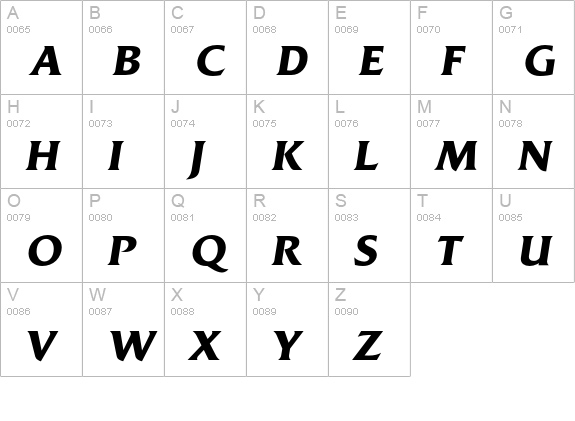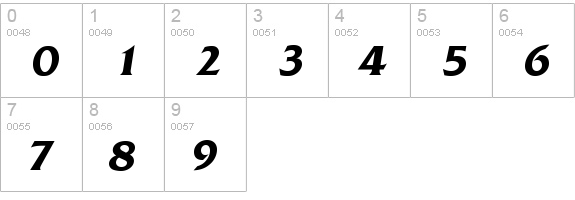
Quadrat-DemiBoldIta Font Details
Quadrat-DemiBoldIta font is a perfect blend of elegance and modernity. With its bold and italicized characters, this font exudes a sense of confidence and sophistication. The unique design of Quadrat-DemiBoldIta makes it stand out from the crowd, making it an ideal choice for logos, headlines, and branding materials. The versatility of this font allows it to be used across a wide range of design projects, from print to digital. Its clean lines and distinctive letterforms ensure readability, even at smaller sizes. Whether you are creating a poster, a website, or a magazine layout, Quadrat-DemiBoldIta font will bring a touch of professionalism and style to your work. One of the best features of Quadrat-DemiBoldIta font is that it is freely available to download at FontsMarket.com. This means that you can enjoy the benefits of this exceptional font without any cost. Simply visit FontsMarket.com, search for Quadrat-DemiBoldIta font, and start using it in your designs today. Don't miss out on this incredible opportunity to enhance your design projects with the elegance and versatility of Quadrat-DemiBoldIta font. Download it for free at FontsMarket.com and elevate your designs to new heights.